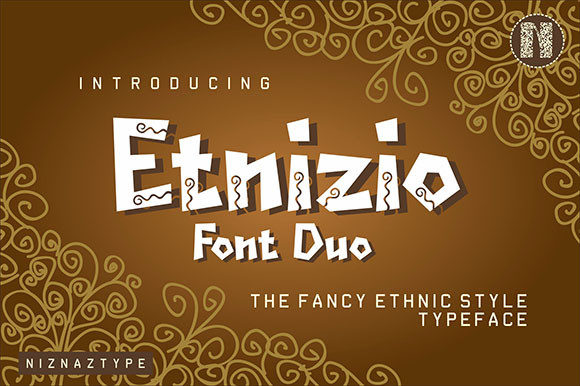
Introducing Etnizio Font - The Gateway to Enchanting Designs!
Embark on a journey of creativity with Etnizio Font, a decorative masterpiece that sparks imagination and adds a dash of whimsy to your design projects. Immerse yourself in the world of Etnizio, a font family that's specially crafted to bring life to school projects and kids' parties. Let your imagination soar as you explore the endless possibilities that await you with Etnizio.
With its captivating curves and playful strokes, Etnizio Font captures the essence of youthful exuberance and adds a spark of excitement to any design. Unleash your inner child and let Etnizio transport you to a realm where colors dance and laughter fills the air. Its unique and charming style promises to turn your ordinary designs into extraordinary creations that leave a lasting impression.
Etnizio Font is the perfect companion for designers seeking to create captivating invitations, posters, greeting cards, and other printed materials that speak to the hearts of children. Its playful nature lends itself beautifully to crafting eye-catching logos, fun branding elements, and vibrant social media graphics that resonate with young audiences. Experiment with Etnizio's diverse character set to design personalized name tags, certificates, and awards that will make your little ones feel special.
But Etnizio Font's magic doesn't stop there. Its versatility extends to crafting enchanting digital content that engages and entertains children. Create captivating online games, educational presentations, and interactive websites that immerse kids in a world of wonder and exploration. With Etnizio Font as your trusty ally, the possibilities are boundless.
So, why settle for ordinary when you can have extraordinary? Embrace the magic of Etnizio Font and open the door to a world where creativity flourishes and imagination reigns supreme. Let Etnizio be your guide as you embark on a creative journey that will leave you and your audience spellbound.